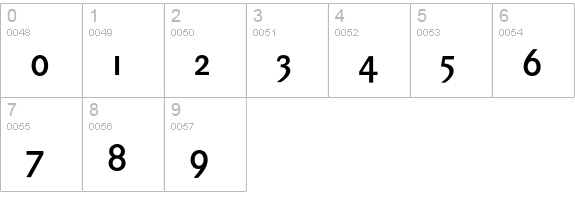
CorporateSSC-Demi Font Details
CorporateSSC-Demi is a sub-bold, structured variant in the CorporateSSC typeface family \xE2\x80\x94 well suited to sub-headlines and emphasised passages.